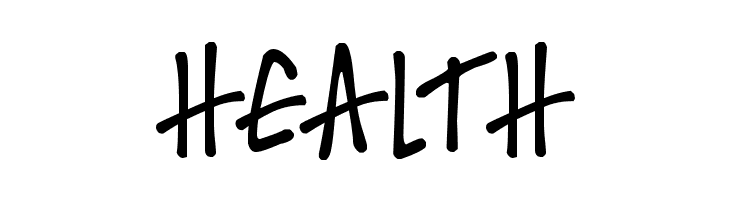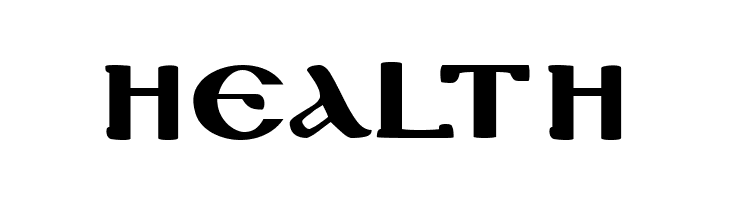
• Slightwell Personal Use
A lively, handwritten font with fluid strokes and playful curves.
• Slime Vibes DEMO DEMO
• Slow Death
A bold, dripping font with a horror-inspired, decorative style.
• Small Chopper
A playful, handwritten script font with bold strokes and smooth curves.
• Smart student
A playful, handwritten font with tall, narrow letters and decorative elements.
• Smooth Marker
A playful, handwritten font with a smooth, marker-like appearance.
• Smoothest Personal Use
An elegant, flowing script font with bold, confident strokes.
• Snooky
A bold, dynamic script font with a handwritten appearance.
• Snooky Italic
A bold, italic script font with a dynamic and fluid style.
• Snooky Swash
A playful and decorative font with whimsical swashes and flourishes.
• SnorkelWhisp
A whimsical, hand-drawn font with playful, irregular letterforms.
• snowball bush
A playful, handwritten font with fluid strokes and a casual style.
• snowmask
A bold, geometric font with rounded shapes and a modern, playful style.
• Snuff
A bold, textured font with a playful, fuzzy outline.
• so this is it
A bold, decorative font with a double-line, geometric design.
• so this is it
• Soengenep
An elegant, flowing script font with a handwritten style.
• Sorcerous
A bold, playful, hand-drawn font with a whimsical style.
• Soul Sistar
A lively, expressive handwritten font with fluid strokes and artistic flair.
• Soularic Regular
A modern, geometric font with bold, rounded edges and a clean, structured appearance.
• South-Wark's